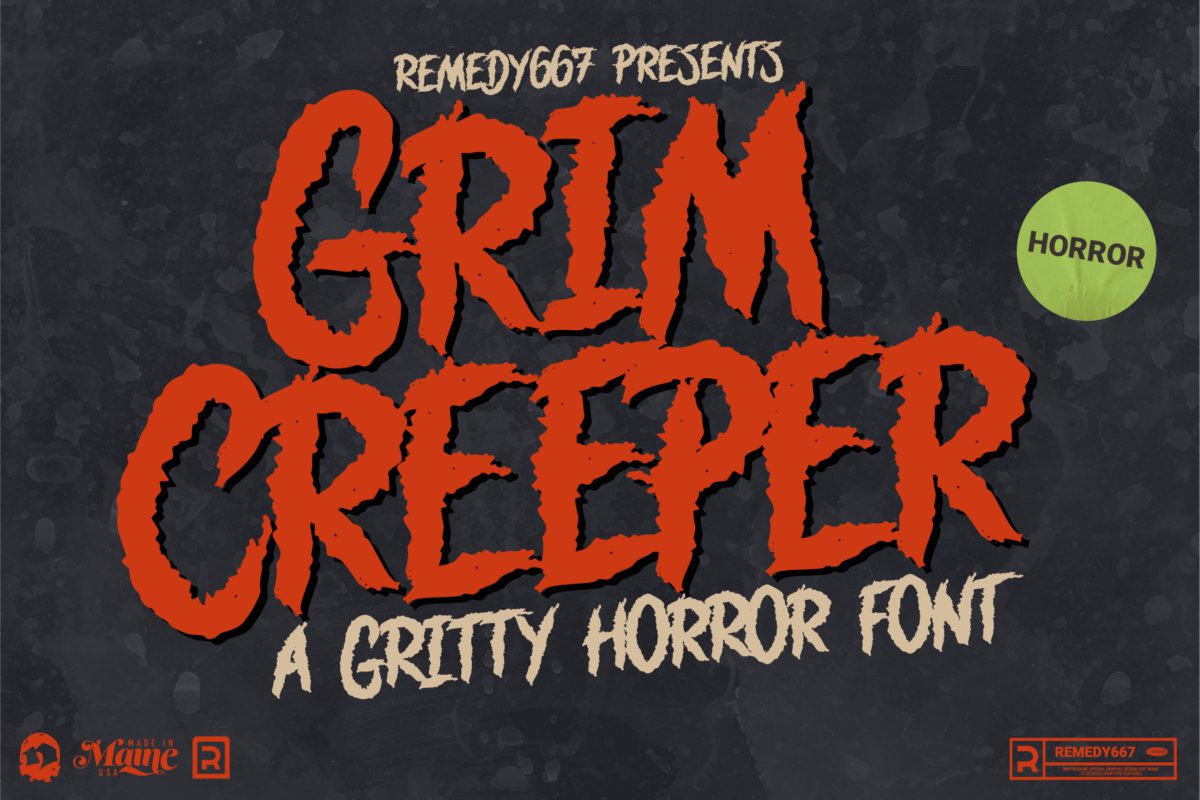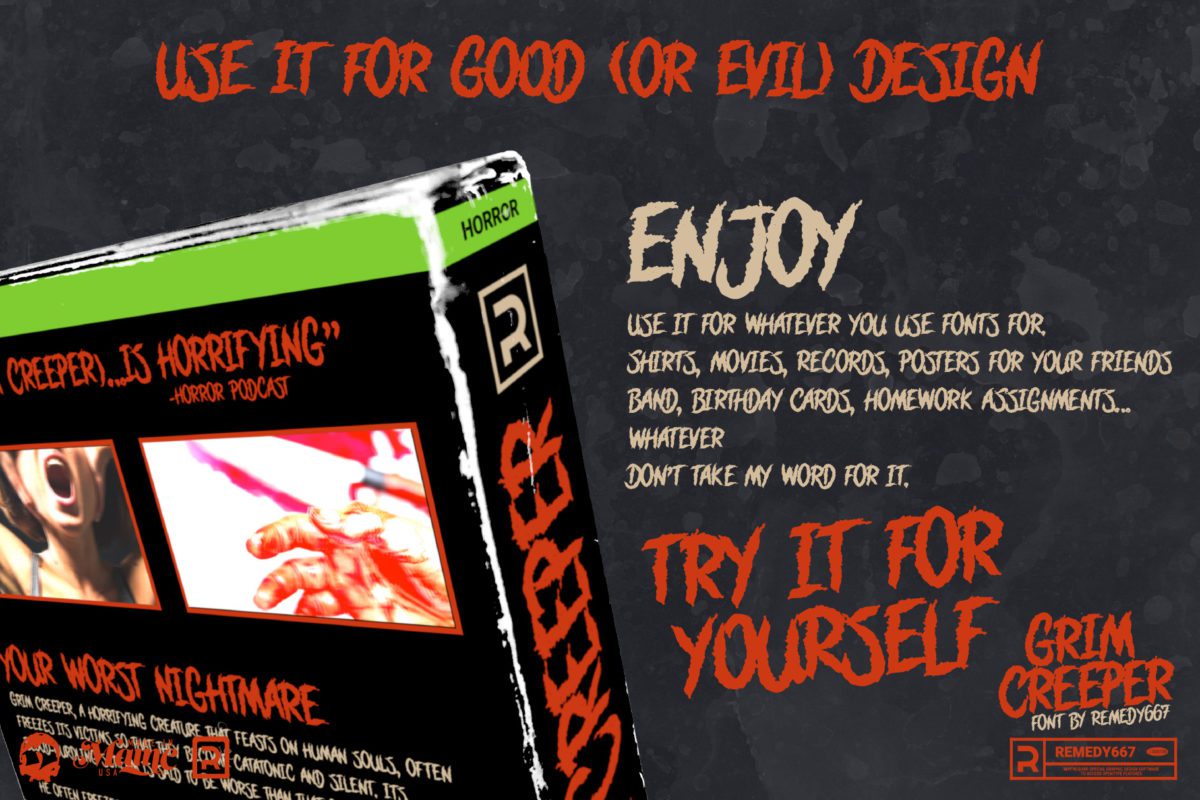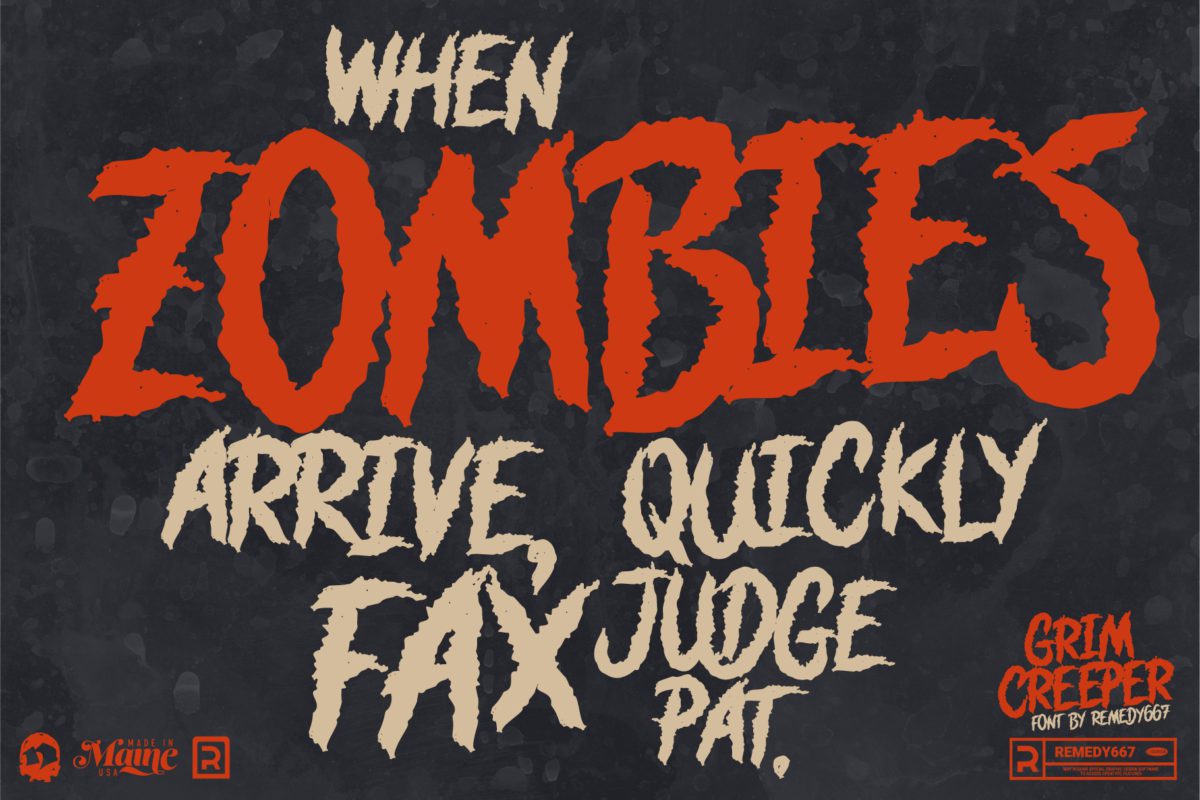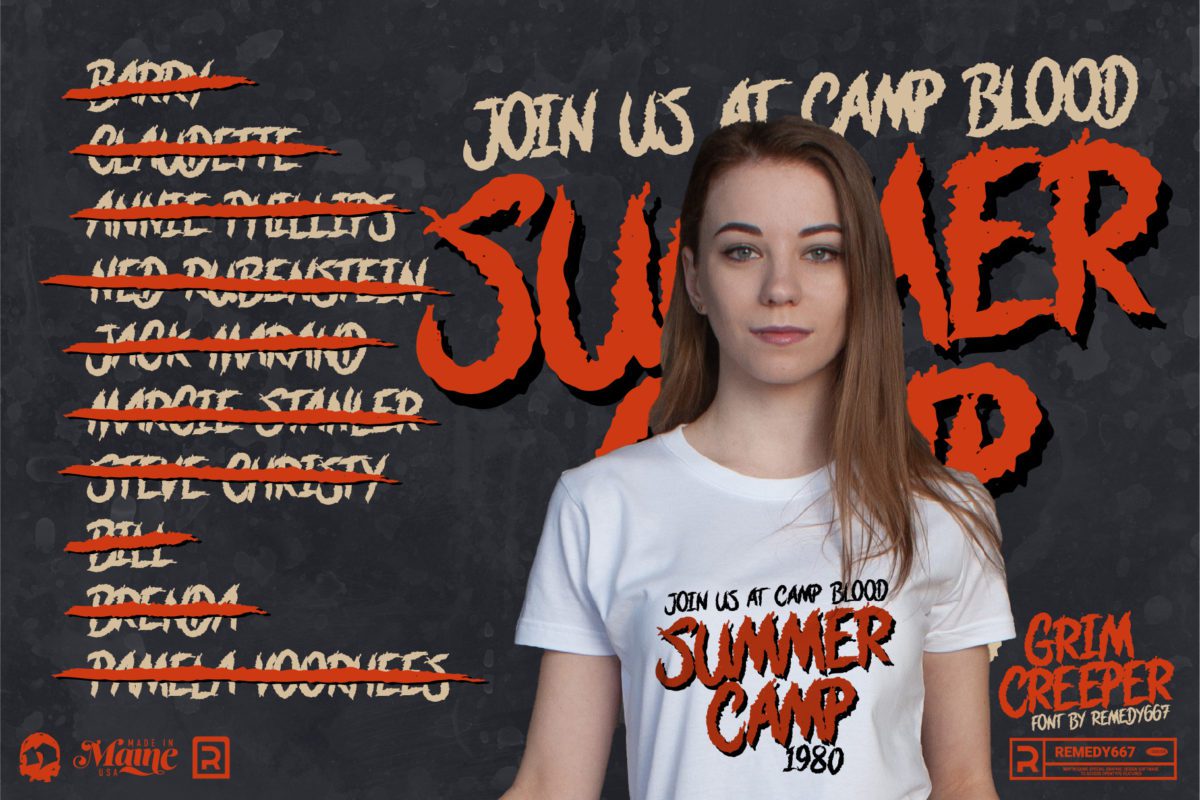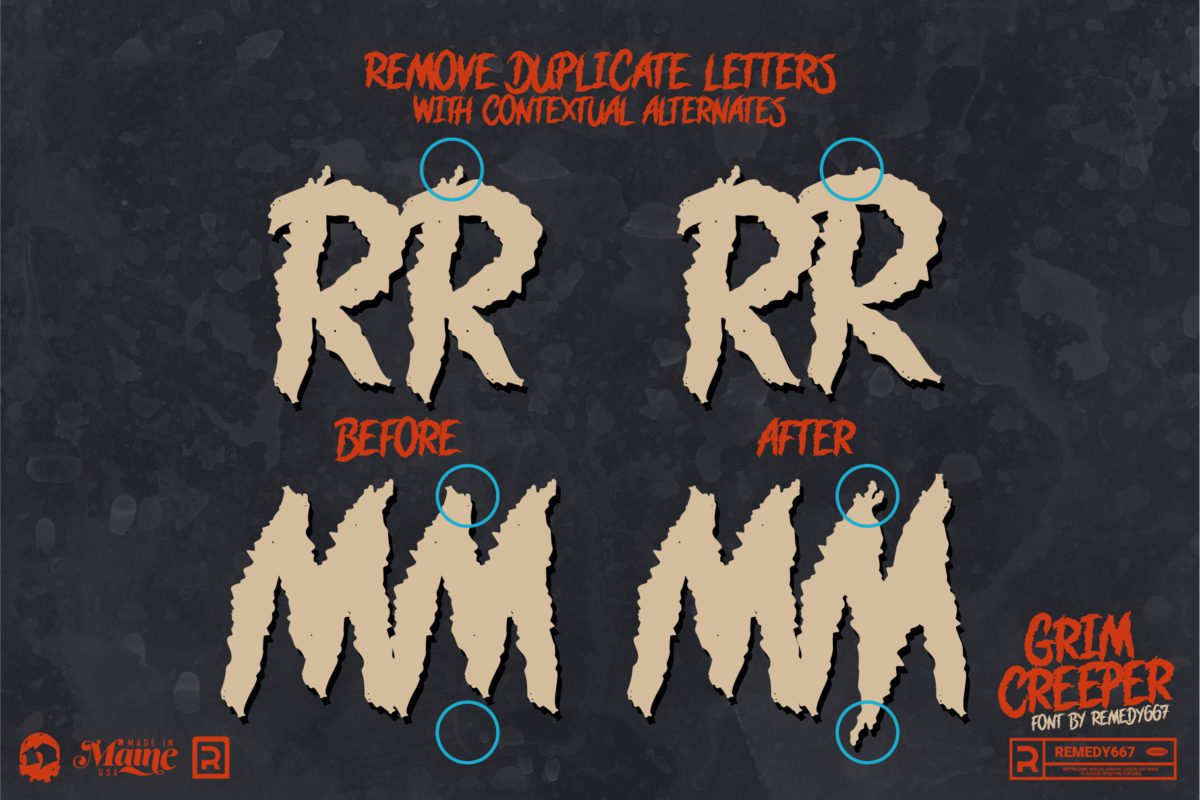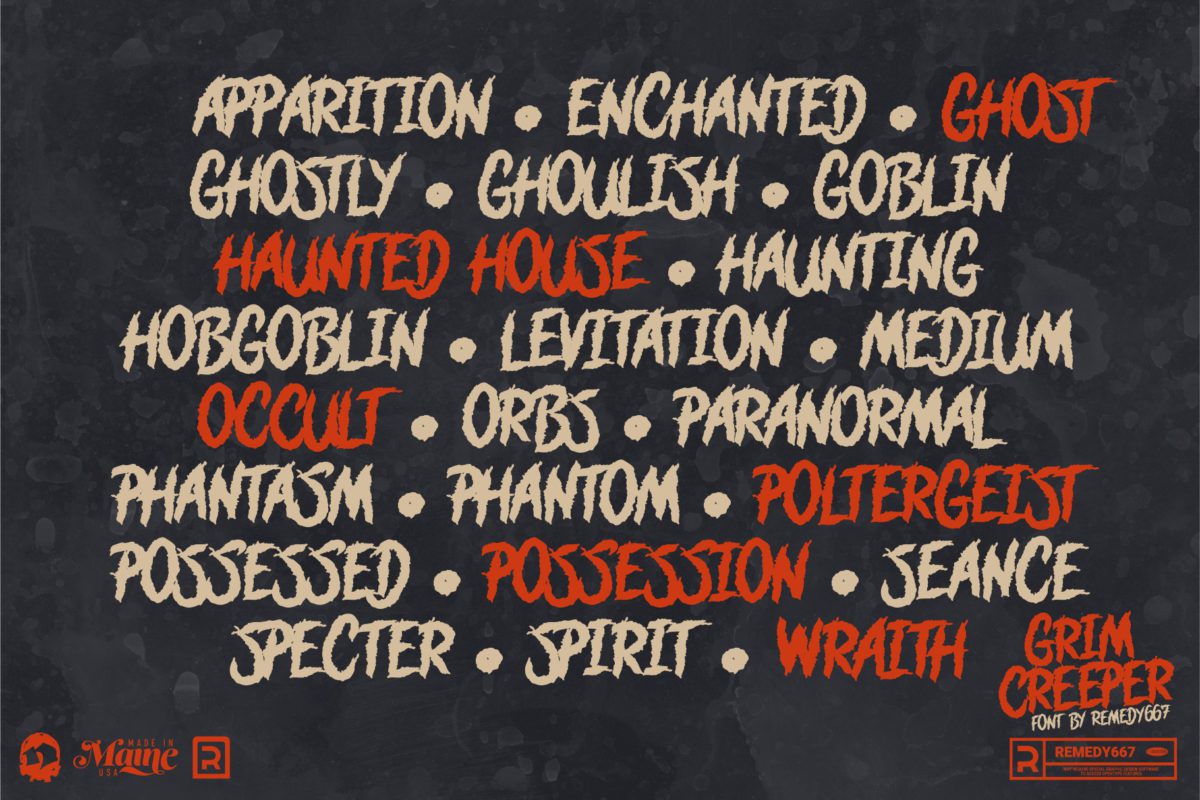
Grim Creeper
Get back to your roots this Halloween with the font that makes your clients scream. Grim Creeper is the perfect font for your macabre movie, comic, or horror projects! It’s the typeface that your favorite 80’s horror movies were made of, used by indie comic book creators, and perfect for anything that calls for a gritty situation.
Grim Creeper was made for Halloween designs and decor, zines, movie titles, cards and invitations, apparel, posters, social media, music, comics, and more!
• Doubles Elimination gives your work less of a “font” look.
• So scratchy you can feel it.